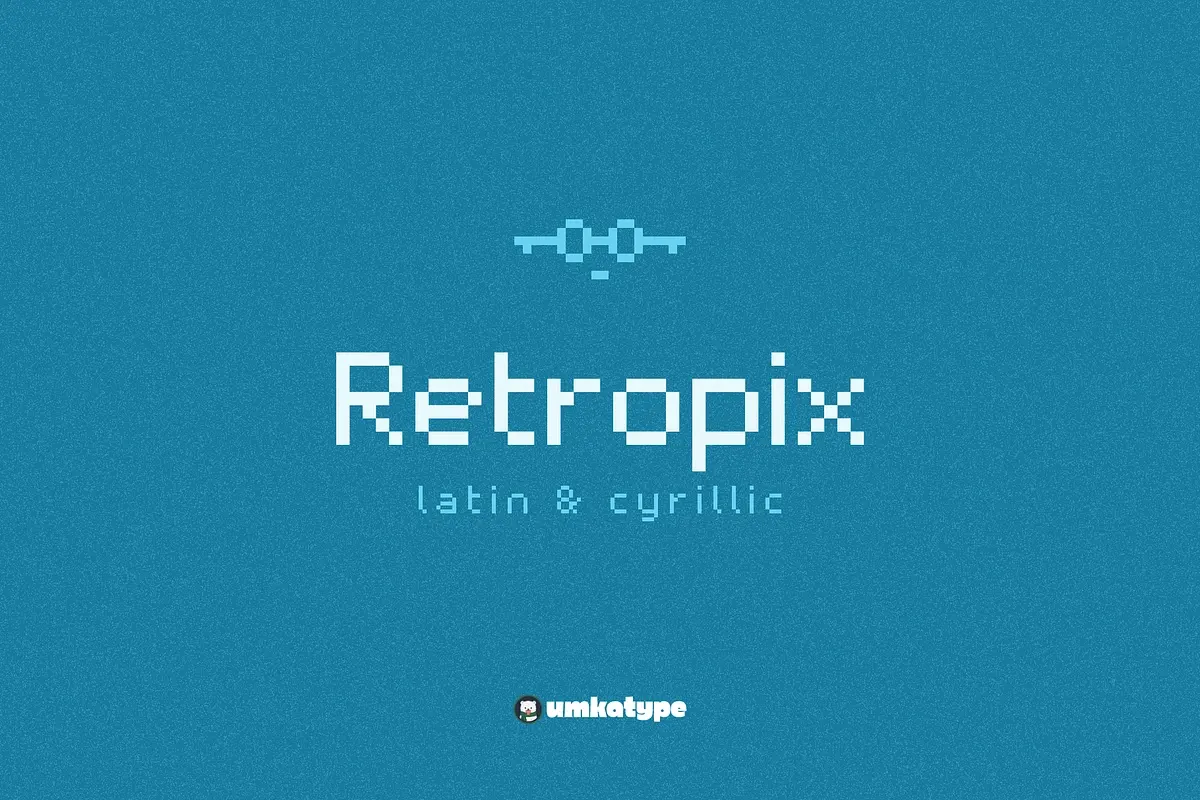
Retropix Font Free Download is a nostalgic pixel-style typeface designed to bring back the golden age of 8-bit and 16-bit gaming. Perfect for retro video game titles, arcade-inspired graphics, pixel art projects, and gamer branding, this font captures the blocky charm of classic consoles and screen text.
Whether you're designing a throwback game UI, a YouTube channel focused on vintage games, or fun merchandise, Retropix delivers an authentic pixel-perfect look. Its crisp, grid-based style ensures readability while staying true to its pixel art roots. Retropix Font Free Download allows you to try it out in personal projects before purchasing a commercial license.
Press start on creativity with Retropix — the ultimate pixel game font for designers who love retro gaming style.